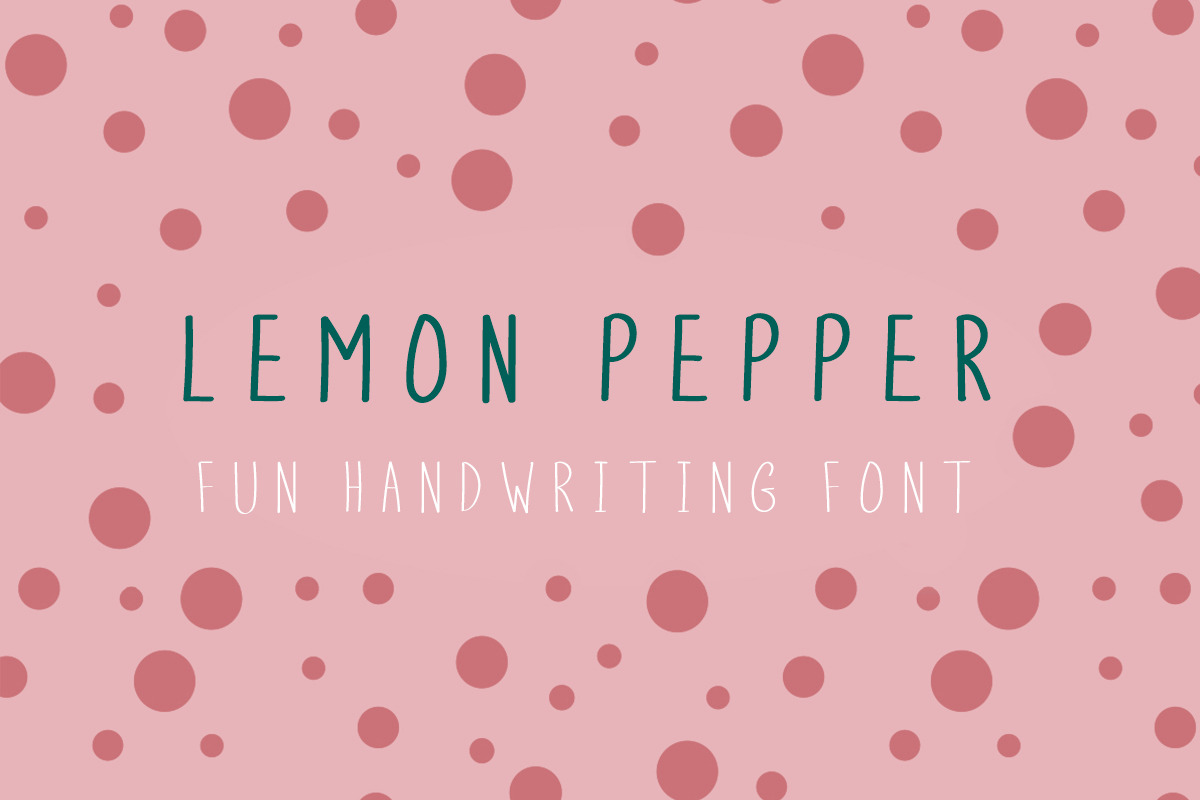
Lemon Pepper Handwritten Font
Lemon Pepper is a beautiful script Handwritten Font which will take your projects to the next level.
The script font has a beautifully simple design that is fun and playful, which makes it perfect for a wide range of projects.